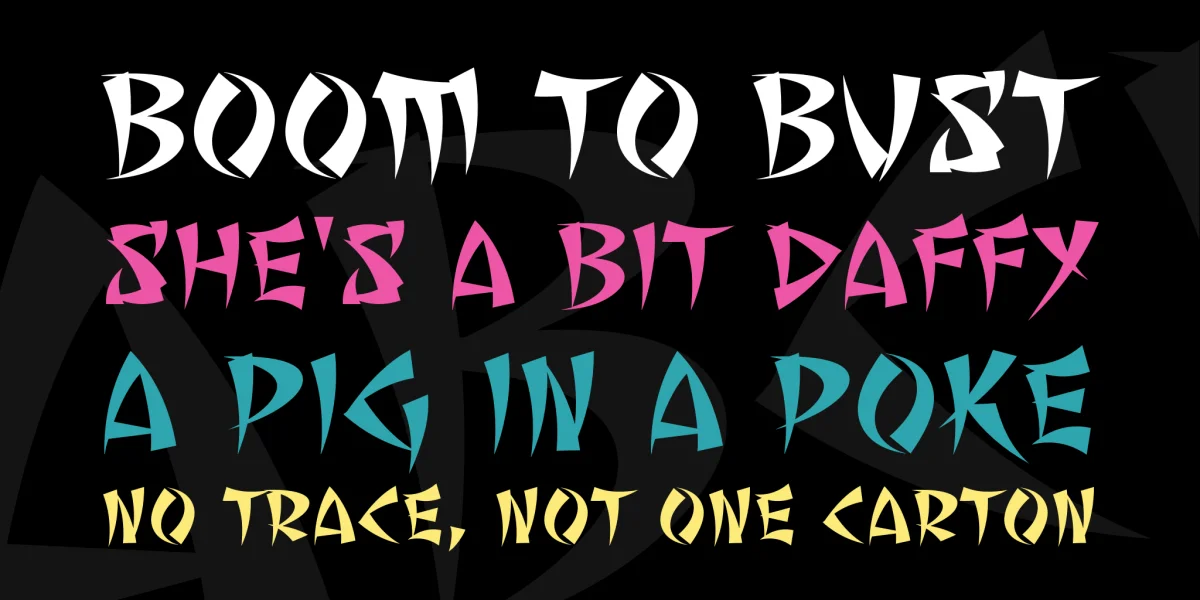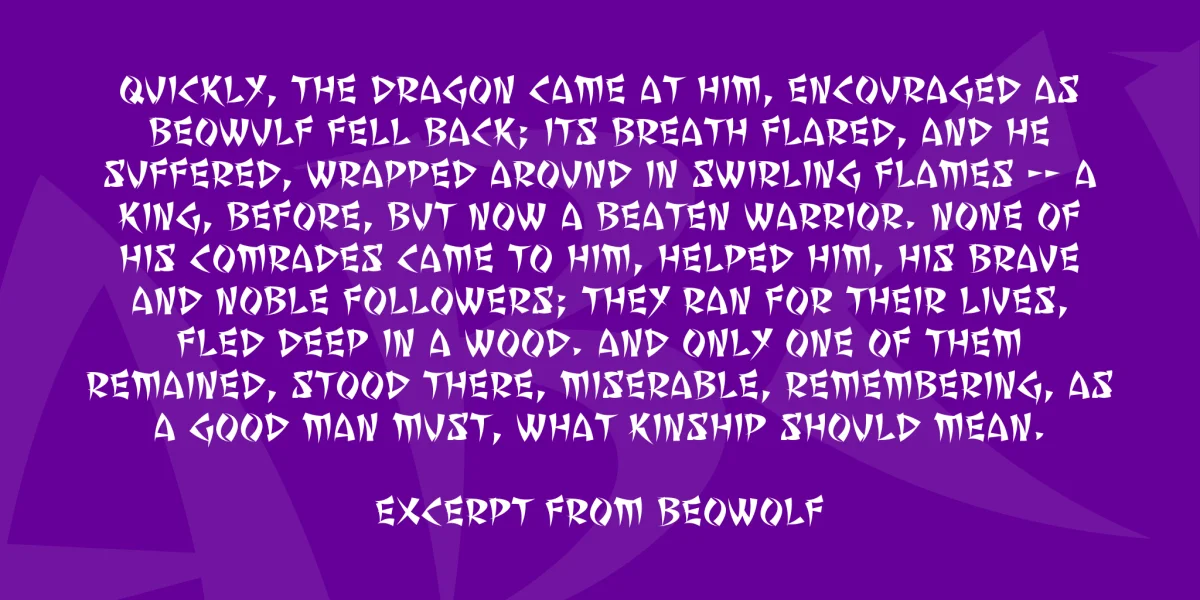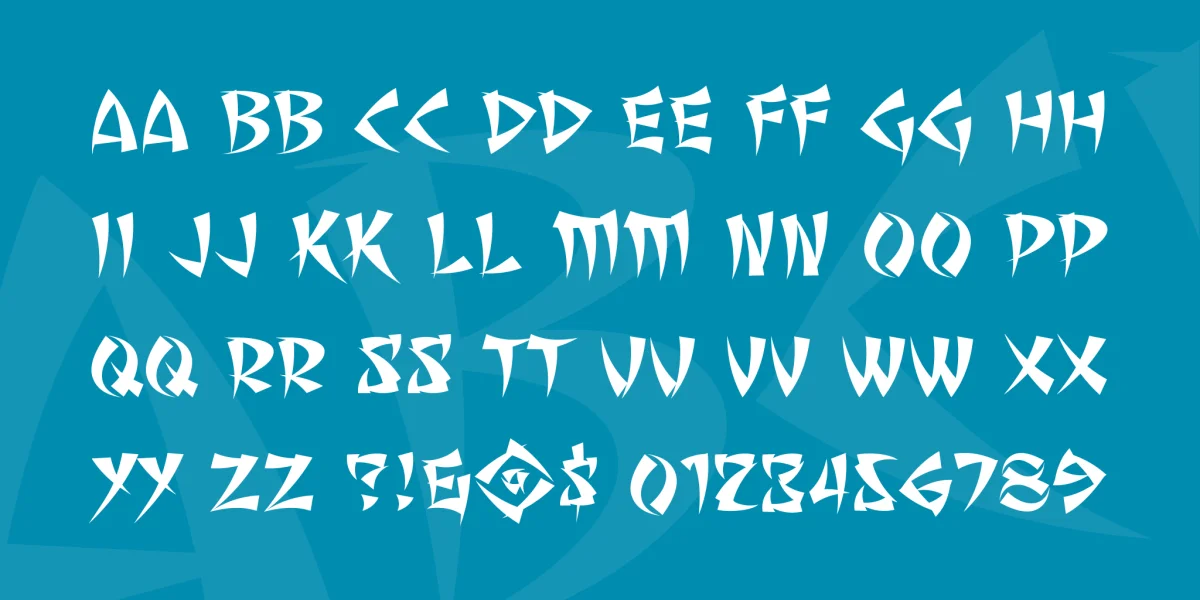
How many of you guys remember watching good ol’ KUNG-FU THEATRE every weekend as a kid? Well it was a formative ritual for me! This font is a tribute to those great cheesy 70’s action films. MY KUNG-FU HAS THE FURY OF SEVEN MONKEYS! RAAAAAA!